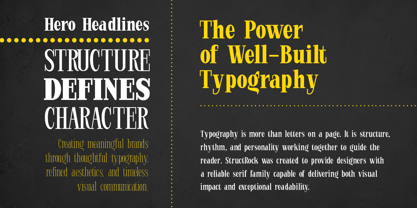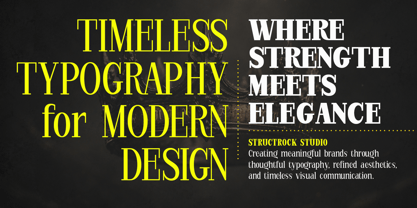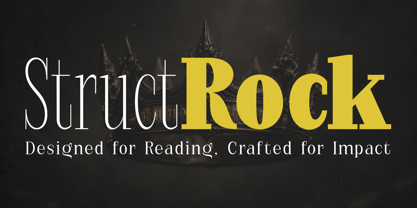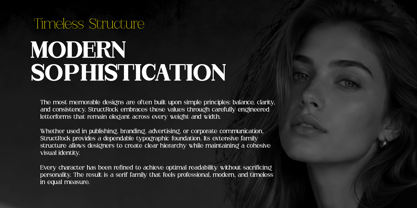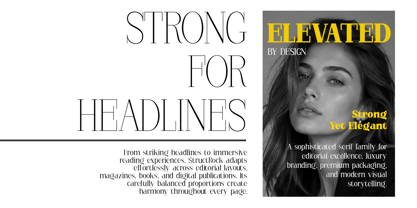
StructRock
por eyetype
La familia tipográfica StructRock fue diseñada por Ront Jorse, Ayi Teiry y publicada por eyetype. StructRock contiene 50 estilos y opciones de paquete familiar. Más información sobre esta familia
StructRock Serif Font Family
StructRock is a bold and versatile serif typeface family built on the principles of structure, balance, and visual strength. Designed for modern branding, editorial design, publishing, packaging, and display typography, StructRock combines classic serif craftsmanship with contemporary proportions to create a typeface that feels both authoritative and refined.
Featuring 50 upright styles across five width categories and a complete weight range from Thin to Extra Black, StructRock provides designers with an extensive typographic system capable of handling everything from elegant body text to commanding headlines. Whether used in corporate identities, luxury branding, magazines, books, or advertising campaigns, StructRock delivers clarity, confidence, and timeless appeal.
StructRock Condensed
StructRock Condensed is designed for situations where space efficiency is essential without compromising readability or style. Its compact proportions create a strong visual presence, making it ideal for headlines, packaging, editorial layouts, posters, and branding applications that require maximum impact in limited space.
StructRock Semi Condensed
StructRock Semi Condensed offers a balanced solution between compactness and comfort. Slightly wider than the Condensed styles, it provides improved readability while maintaining a clean and efficient footprint. Perfect for magazines, corporate materials, advertising, and contemporary visual identities.
StructRock Normal
StructRock Normal serves as the foundation of the family. Carefully balanced proportions and refined serif details make it highly versatile across a wide range of design applications. From long-form reading and editorial layouts to branding and digital media, it delivers exceptional performance and timeless elegance.
StructRock Semi Expanded
StructRock Semi Expanded introduces a more open and confident appearance. Its wider proportions improve visual presence and readability, making it an excellent choice for premium branding, marketing materials, packaging, and large-format editorial designs.
StructRock Expanded
StructRock Expanded represents the most expressive and commanding style within the family. Its generous width creates a bold, sophisticated statement that stands out in headlines, advertising campaigns, luxury branding, signage, and display typography. The expanded proportions emphasize the distinctive character of the serif design while maintaining harmony and legibility.
Family Features
• 50 Upright Styles
• Five Width Categories
• Thin to Extra Black Weight Range
• Contemporary Serif Design
• Strong Editorial Performance
• Optimized for Display and Text Use
• Consistent Professional Typeface System
• Refined Letterforms and Spacing
• Multilingual Language Support
• Complete Numerals, Punctuation, and Symbols
Perfect For
• Editorial Design
• Books & Publishing
• Luxury Branding
• Corporate Identity
• Packaging Design
• Logo Design
• Advertising Campaigns
• Magazine Layouts
• Website Typography
• Product Branding
• Fashion Branding
Diseñadores: Ront Jorse, Ayi Teiry
Fundición: eyetype